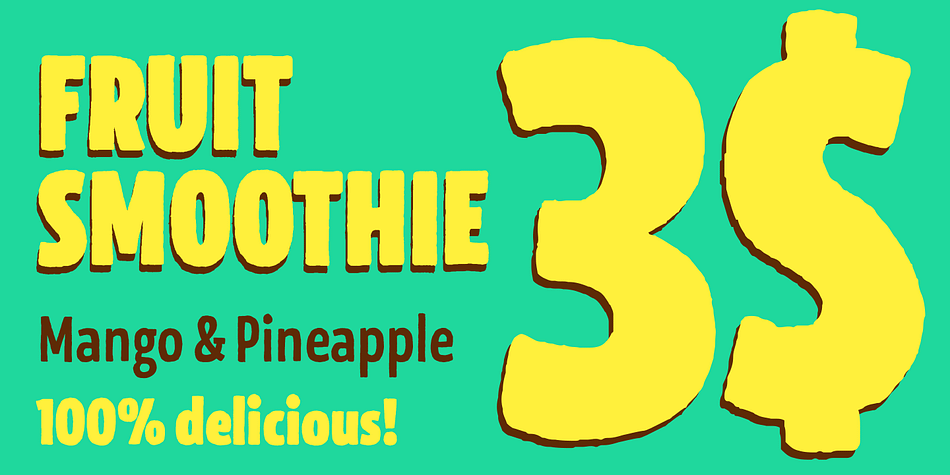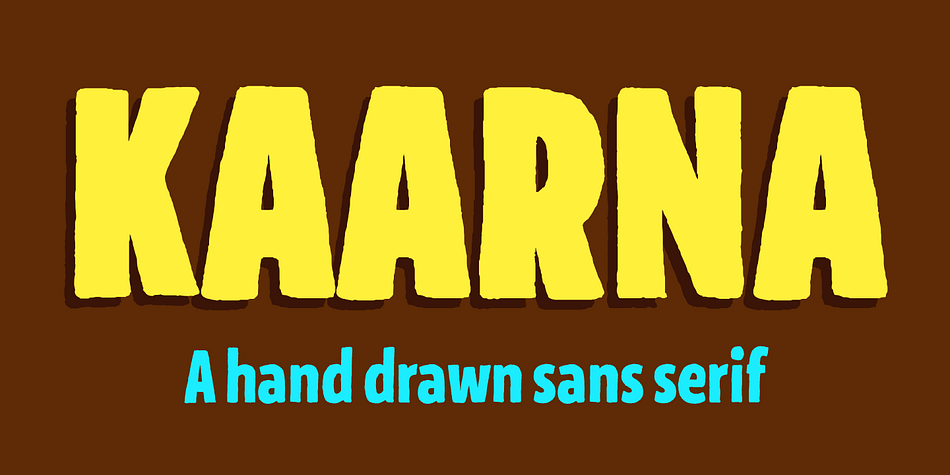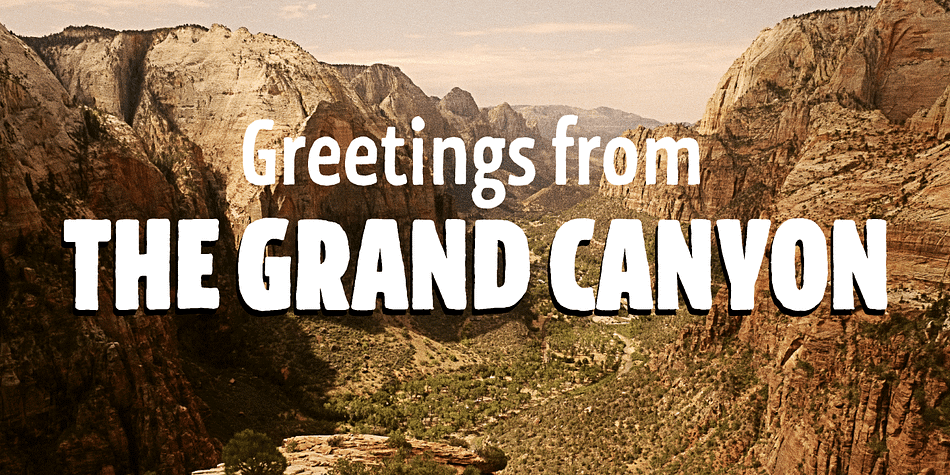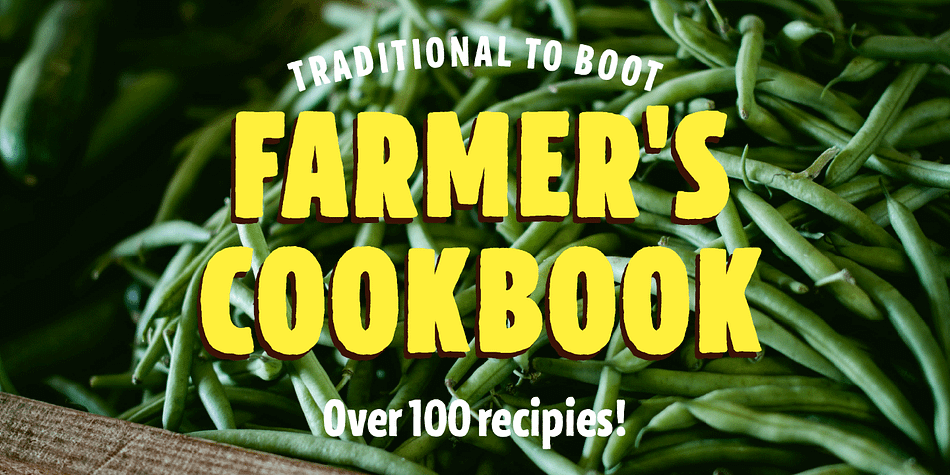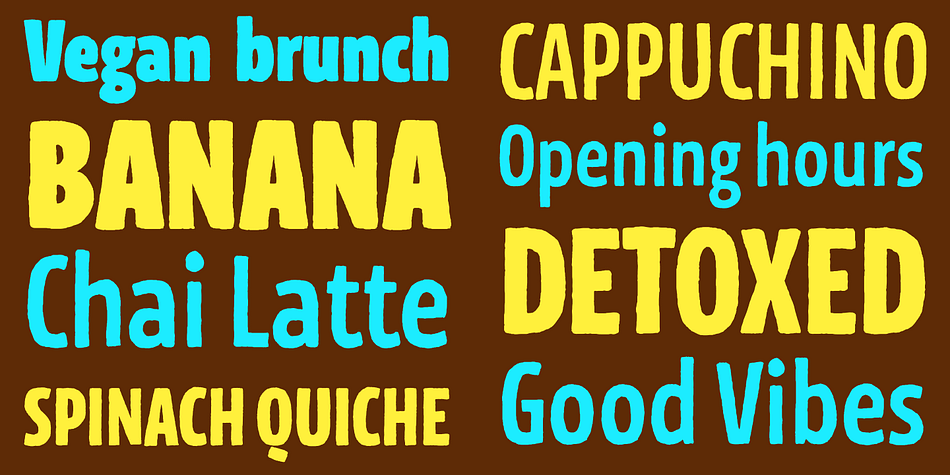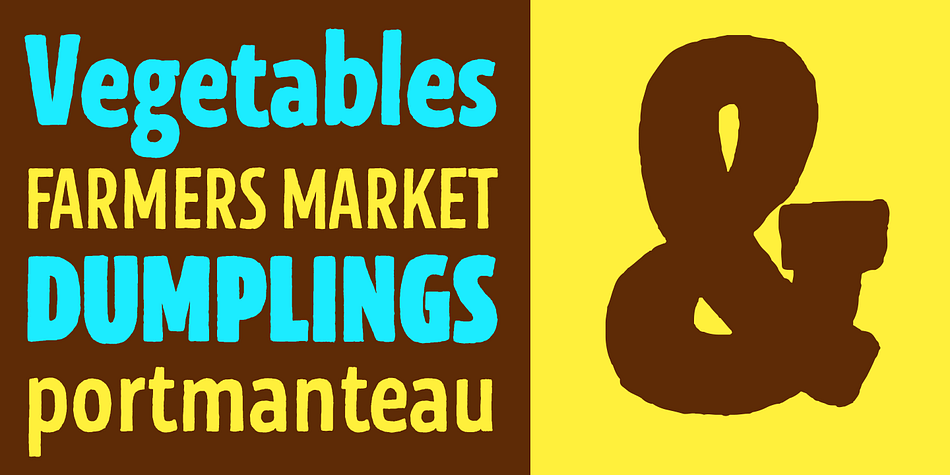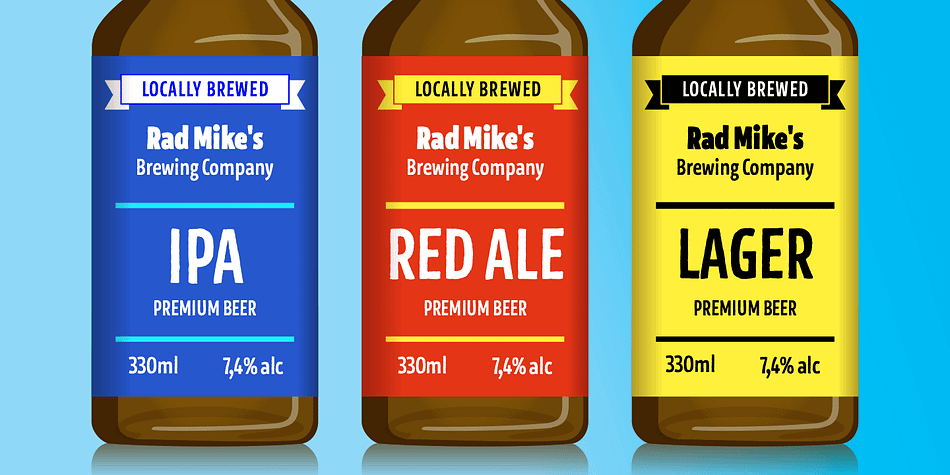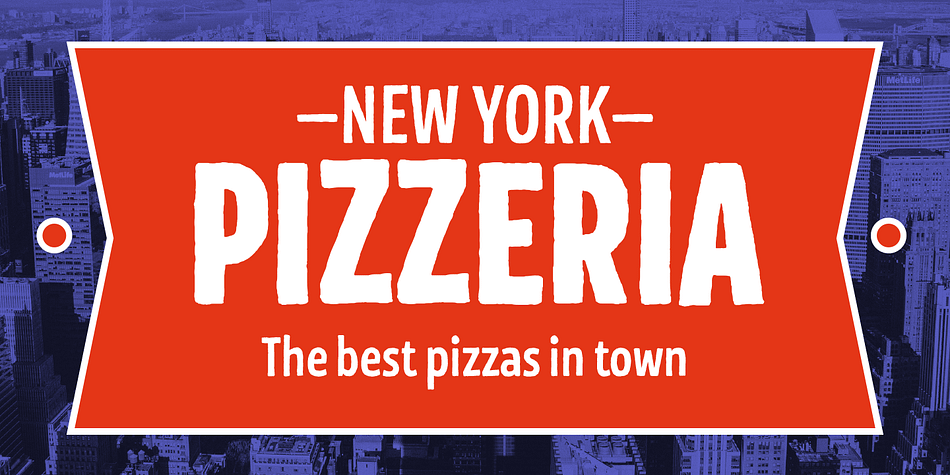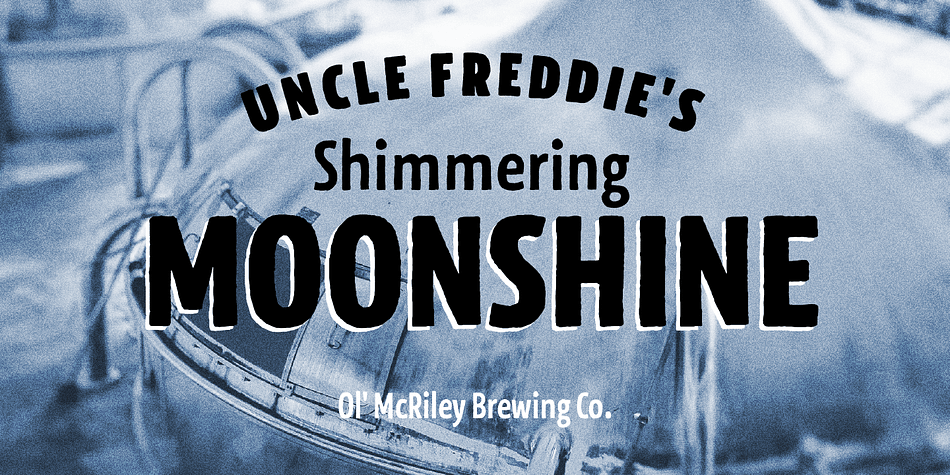
Designed by Teo Tuominen, Kaarna is a hand drawn font family. This typeface has three styles and was published by LetterMaker.
Kaarna is a rough hand drawn sans serif. The underlying shapes and structure are designed in the style of modern sans serifs which is made livelier by the hand drawn look. The condensed proportions make it especially suitable for use in large headlines and to achieve maximum impact.
The hand drawn texture becomes clearly visible in big sizes and quiets down when used small. This allows you to use Kaarna for both headlines and short to medium length texts, ensuring visually unified typography.
Because of its design and large characters set, Kaarna is well suited for branding, advertising, packaging and editorial use.